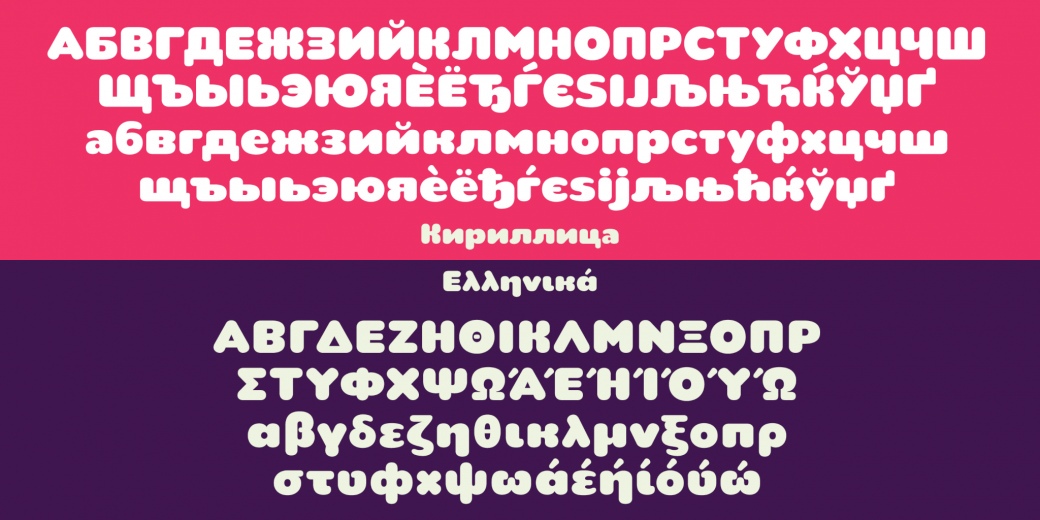
Teaspoon Font
Teaspoon Font is perfect for recipe books, kitchen accessory branding, culinary blog headers, homemade food product labels, bakery signage, cooking class materials, food magazine layouts, artisanal spice packaging, café menu boards, and cozy restaurant branding.
Teaspoon Font creates excitement because it captures the intimate charm of home cooking and artisanal food preparation with its warm, handcrafted letterforms and comforting aesthetic. The font's gentle curves and inviting character design evoke the joy of sharing meals and creating culinary memories, making any brand appear approachable and authentic. Its nostalgic appeal and friendly appearance instantly communicate comfort and quality, creating an emotional connection with audiences who value homemade goodness and traditional cooking methods.
The Teaspoon Font family includes multiple weights and styles: Regular, Bold, Light, Medium, Italic, Bold Italic, Script, Condensed, Rounded, and Decorative versions. Each variant maintains the font's cozy kitchen character while offering different levels of warmth and formality suitable for various culinary and hospitality applications.
This delightful typeface brings the warmth of home cooking into professional food branding with authentic charm and personality. Teaspoon Font Free Download offers culinary entrepreneurs and food enthusiasts access to typography that perfectly captures the spirit of homemade quality and kitchen creativity. The font's friendly appearance and approachable design make it ideal for businesses emphasizing traditional cooking methods and family recipes. Whether you're creating branding for artisanal food products, designing cookbook layouts, developing marketing materials for cooking schools, or producing content for farm-to-table restaurants, this font delivers the genuine warmth that resonates with food lovers and home cooking enthusiasts. Its versatile design ensures excellent performance across packaging, signage, and digital media while maintaining readability at various scales. The font's kitchen-inspired character makes it particularly effective for conveying authenticity and care in food marketing. Culinary professionals appreciate its ability to communicate homemade quality while remaining highly functional for menu design and instructional materials. The comprehensive character set includes cooking-related symbols and international language support, making it perfect for diverse culinary markets and global food brands seeking to connect with audiences who cherish traditional cooking values and authentic food experiences.